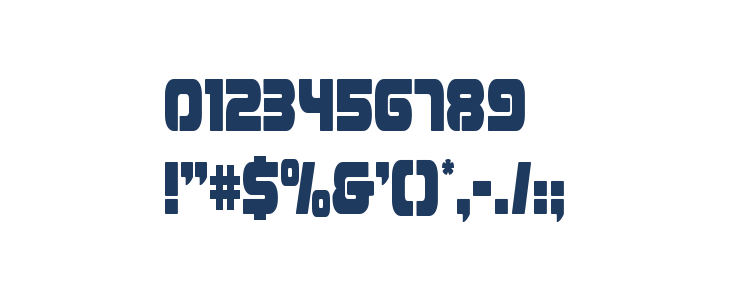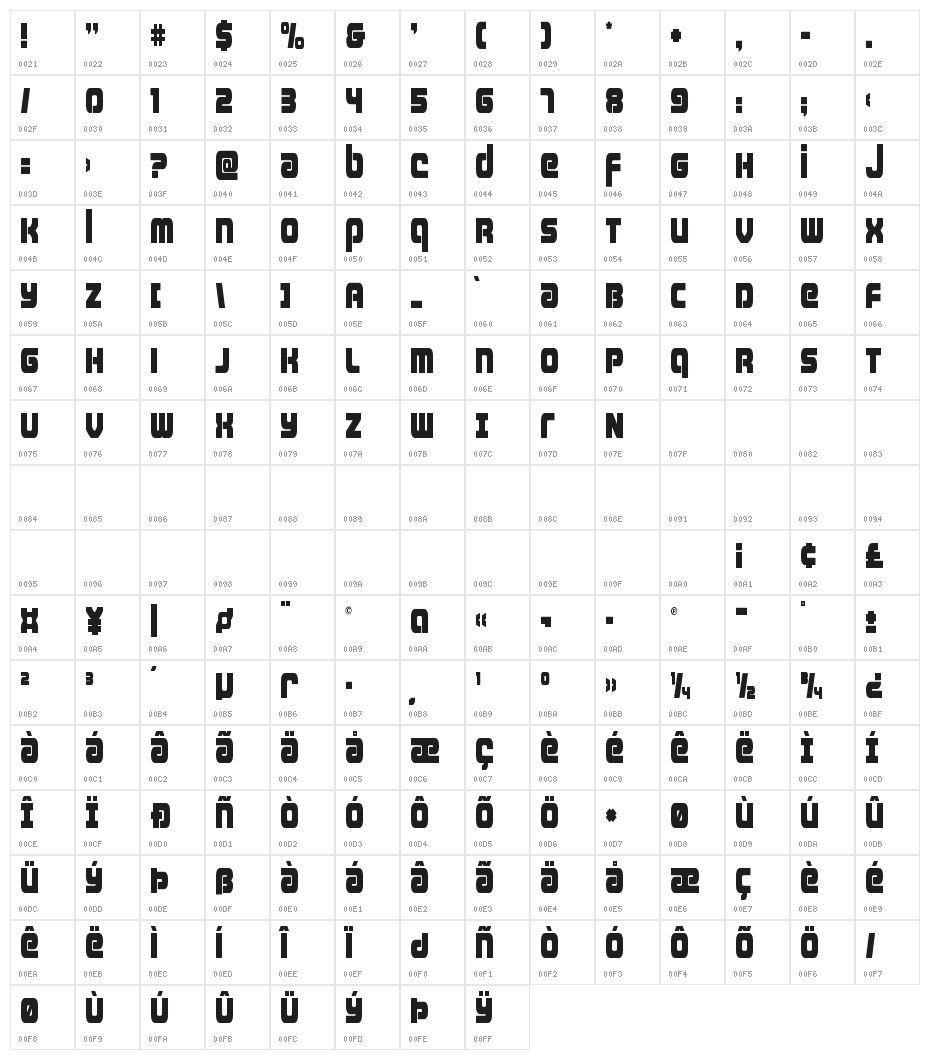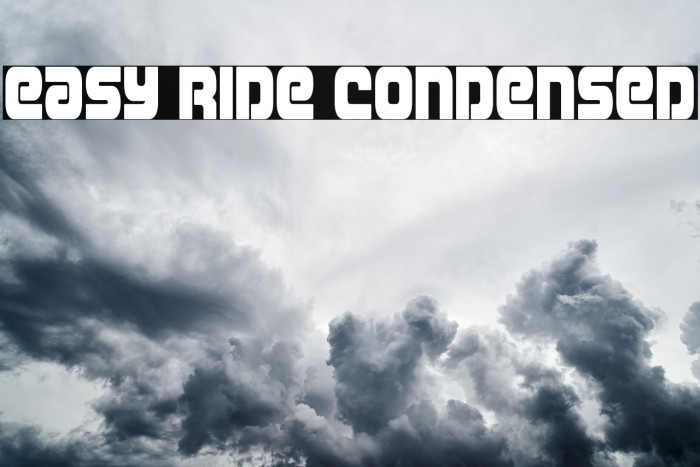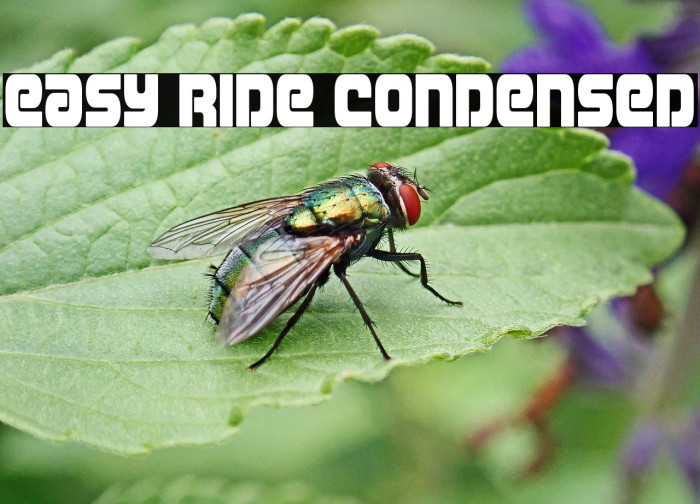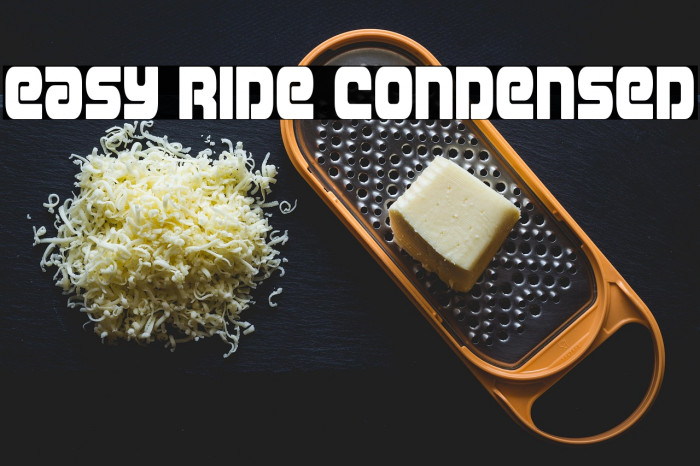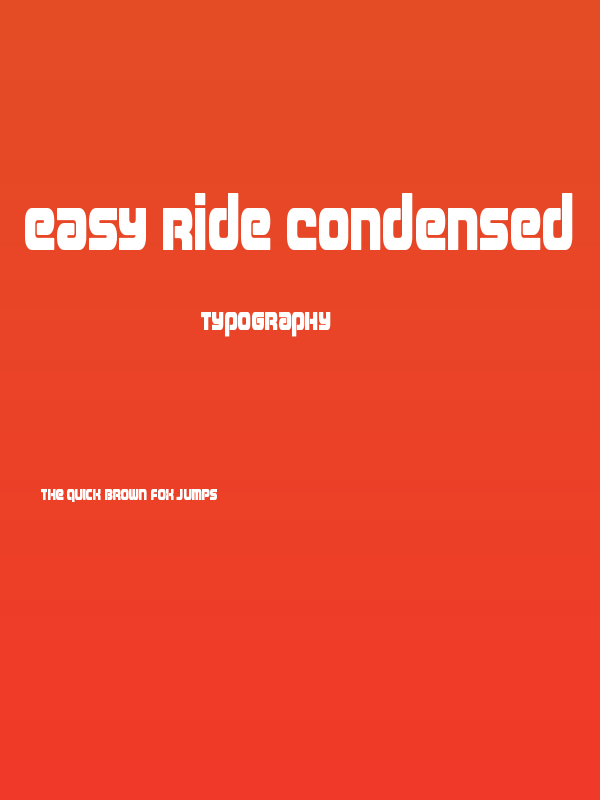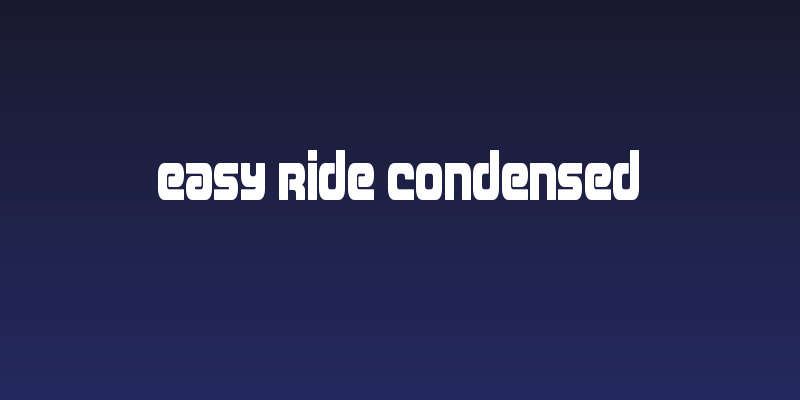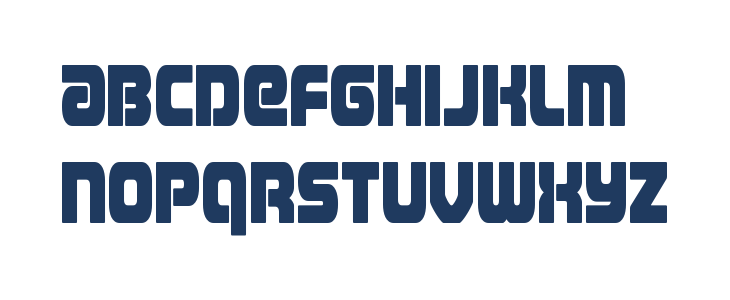
Easy Ride Condensed Font
Easy Ride Condensed Description
This font features a bold and robust design with a distinctly modern and geometric style. The characters are condensed, creating a compact and impactful appearance. The strokes are thick and uniform, contributing to a strong visual presence. The rounded edges soften the overall look, adding a touch of friendliness to the otherwise industrial aesthetic. The uppercase and lowercase letters maintain a consistent height, enhancing readability and uniformity. The numerals and special characters follow the same design principles, ensuring a cohesive appearance across all elements.
| Proposed Projects | Ideal for branding, posters, headlines, and any project requiring a strong, modern aesthetic. |